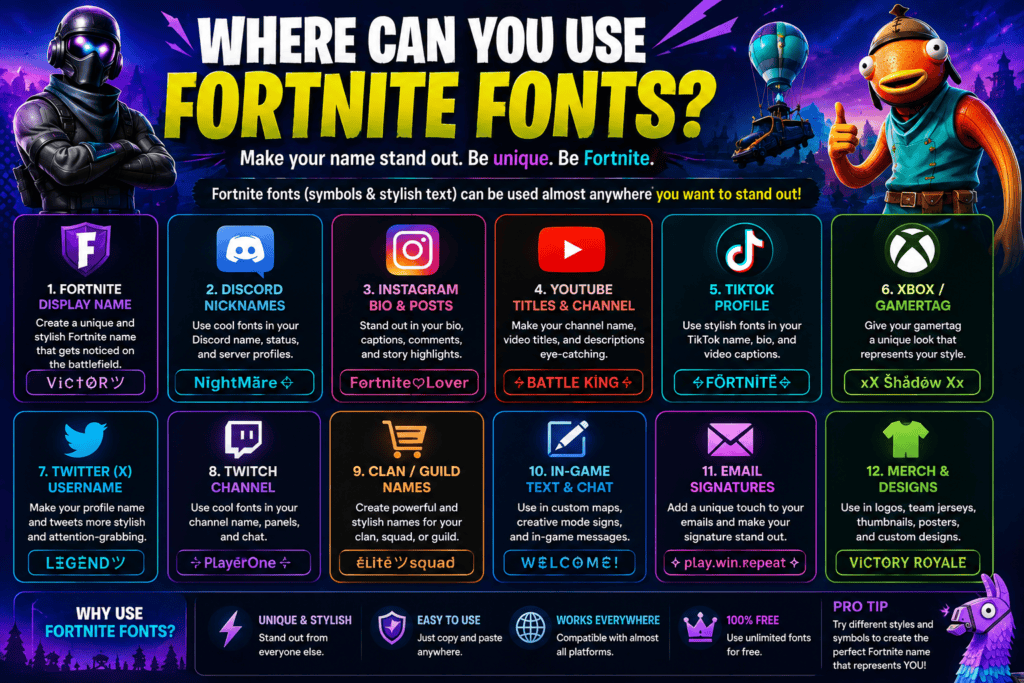
Fortnite Font Generator
Create stylish Fortnite names, usernames and gamer text with multiple unique text styles. Type your text and copy your favorite style.
A Fortnite font generator transforms ordinary text into stylized text for usernames and display names. Unicode characters can add a distinct visual style, while special characters and symbols create recognizable identities quickly during profile customization.
I use a username generator to test username styles, compare alternative characters, and refine a preferred typeface before entering Fortnite. This practical workflow supports readability, individuality, and a polished Fortnite logo identity for online presence.
What Is A Fortnite Font / Fortnite Font Generator?
A Fortnite font is better understood as a text style than one universal typeface: generators combine Unicode characters, special characters, and symbols to create distinctive gaming text for names, usernames, and profiles with easy customization.
The official logo uses a recognizable logo font, Burbank Big Condensed Black, while generator outputs usually remix Unicode characters into a stylized appearance that works across supported username fields for gaming identities and profiles.
How To Use A Fortnite Font Generator
Start your Fortnite font generator by entering text through the input. Choose generated styles after the generator processes it, then compare options. I often favor readable results, because striking styling still needs clarity on screen.
Use copy and paste after selecting your result, especially when updating a username, display name, profile, or text field. Verify special characters, Unicode, and symbols, then save changes through your account settings safely before publishing.
Fortnite Font Styles / Text Output
Fortnite styles can change a name’s feel without copying the official logo. I test readable styles for usernames, display names, and text graphics, then compare Unicode characters, spacing, outlines, and color choices before selecting a generated style.
I prefer outputs that stay clear after copy and paste. Some designs suit Fortnite usernames, while others work better as PNG artwork or social profiles. Check compatibility across the game, platform, and text field before publishing.
Where Can You Use Fortnite Fonts?
I have found Fortnite usernames especially useful when stylized text gives a player stronger visual identity. The same approach fits social media, games, and text fields, helping ordinary names look distinctive without changing their meaning.
Creators can also place Fortnite-style text inside graphics, logo concepts, forum posts, and bios. I recommend checking compatible characters before publishing, because unusual symbols can render differently across platforms or disappear entirely in real use.
Fortnite Symbols
In practice, Fortnite symbols add character customization without changing gameplay. I find them especially useful for team identification, showing identity quickly while personalization gives each profile a distinct visual voice during matches and social interactions.
Beyond decoration, esports communities use competitive branding and communication cues to create distinction. Experienced players can signal progression, celebrate achievements, or represent teams through compact characters that remain readable across profiles and competitive spaces online.
The Fortnite Logo Font
The Fortnite logo uses a distinctive font, not merely decorative text, with Burbank Big Condensed Black establishing its recognizable typeface. Tal Leming, the designer, shaped lettering that supports the game’s bold branding across promotional materials.
From my design testing, the logo works because its font family and varying weights keep the video game identity readable; however, recreating it digitally is usually closer to matching appearance than replicating it exactly in-game.
Create Text Graphics With Fortnite Font
Create text images that borrow the Fortnite-inspired look without treating it as an official typeface. I typically combine colorful text, graphics, and text effects to shape headings, thumbnails, profile art, or gaming posts quickly today.
For stronger results, adjust gradients, outlines, and shadows, then preview the composition before exporting. A transparent PNG works well for overlays, while download options let you reuse polished designs across social media and games easily.
Fortnite Logo Generator
A Fortnite Logo Generator can turn ordinary custom text into graphic text suited to gaming design, especially when you need a recognizable logo without recreating complex artwork. In practice, I find visual design, styling, and readable font size matter more than excessive effects when building memorable branding for profiles, teams, or creative projects.
For sharper results, experiment with generated image options, an outline, contrasting colors, and a clean fill before choosing the final image. A downloadable design works well across websites, while thoughtful customization keeps the result distinctive without relying on the actual Fortnite interface or protected branding assets.
Where Else Can Fortnite Symbols Be Used?
Beyond Fortnite itself, social platforms let players extend identity through comments, social profiles, bios, chats, and messages. In practice, I find these symbols useful for recognition, especially when a distinctive name needs consistency across gaming communities.